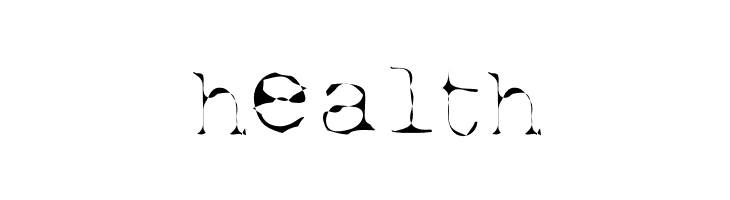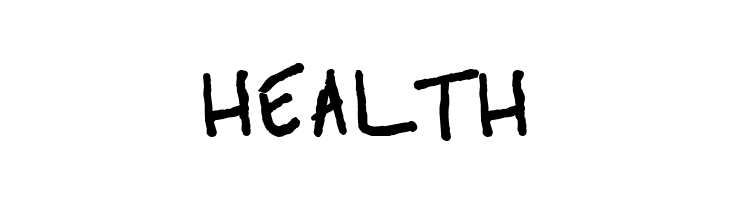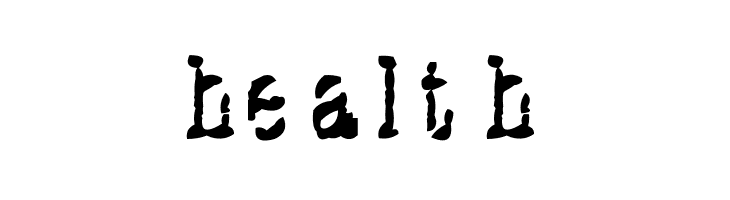
A distressed, grunge-style font with irregular edges and a worn-out look.
A casual, handwritten font with an organic and personal touch.
A playful, handwritten font with a textured and organic appearance.
A distressed, grungy font with a bold, textured appearance.
A bold, graffiti-inspired font with a raw, hand-painted look.
A bold, monospaced typewriter-style font with a vintage feel.
A bold, calligraphic font with dynamic strokes and a handcrafted feel.
A bold, vintage-style font with a distressed, woodblock print appearance.
A bold, textured font with a rugged, vintage appearance.
A casual, handwritten font with a playful and informal style.